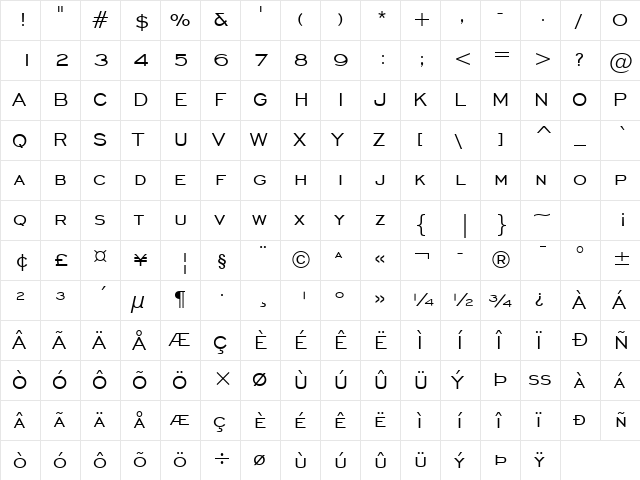
EngraversGothic BT Regular
Design Context for EngraversGothic BT Typeface
EngraversGothic BT has the quiet confidence of well-executed sans-serif typography: versatile, unobtrusive, and dependable at any size.
Font Pairing: Works well alongside a characterful serif or display font that can carry the expressive load while EngraversGothic BT handles the functional copy.
Pro Tip: Pair EngraversGothic BT with a display or serif font for headlines — its neutral character makes it an excellent supporting player in complex typographic systems.